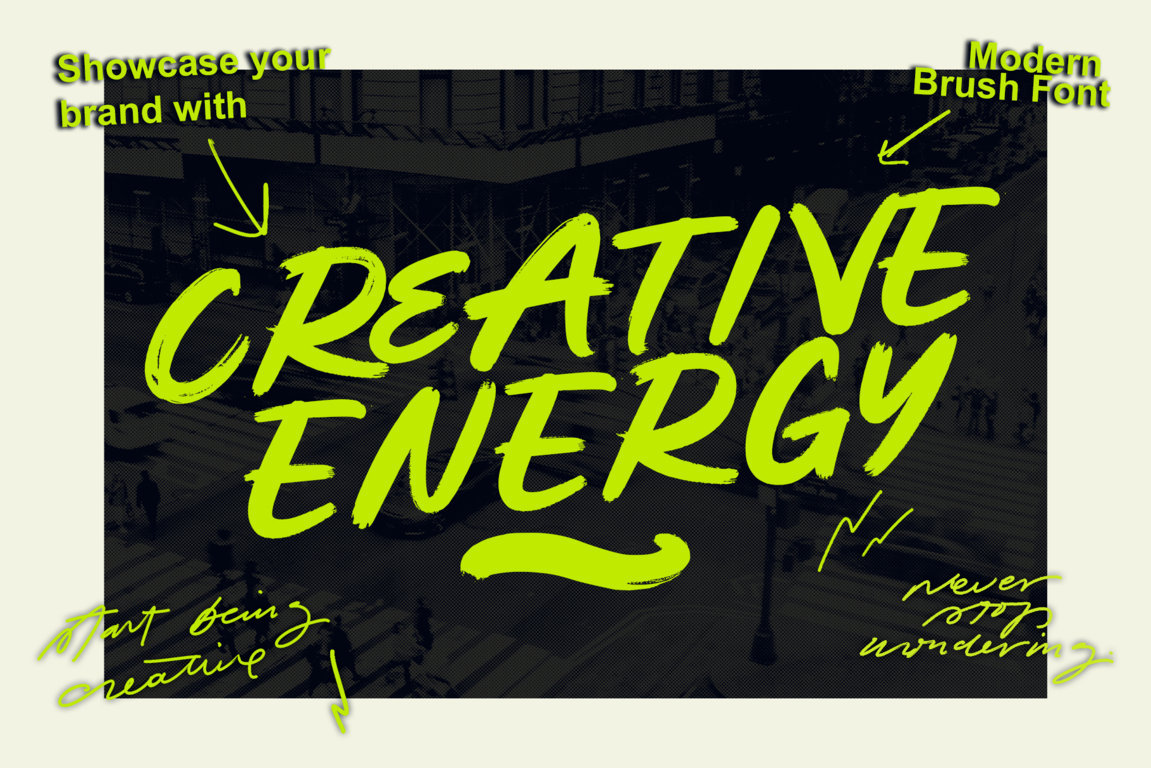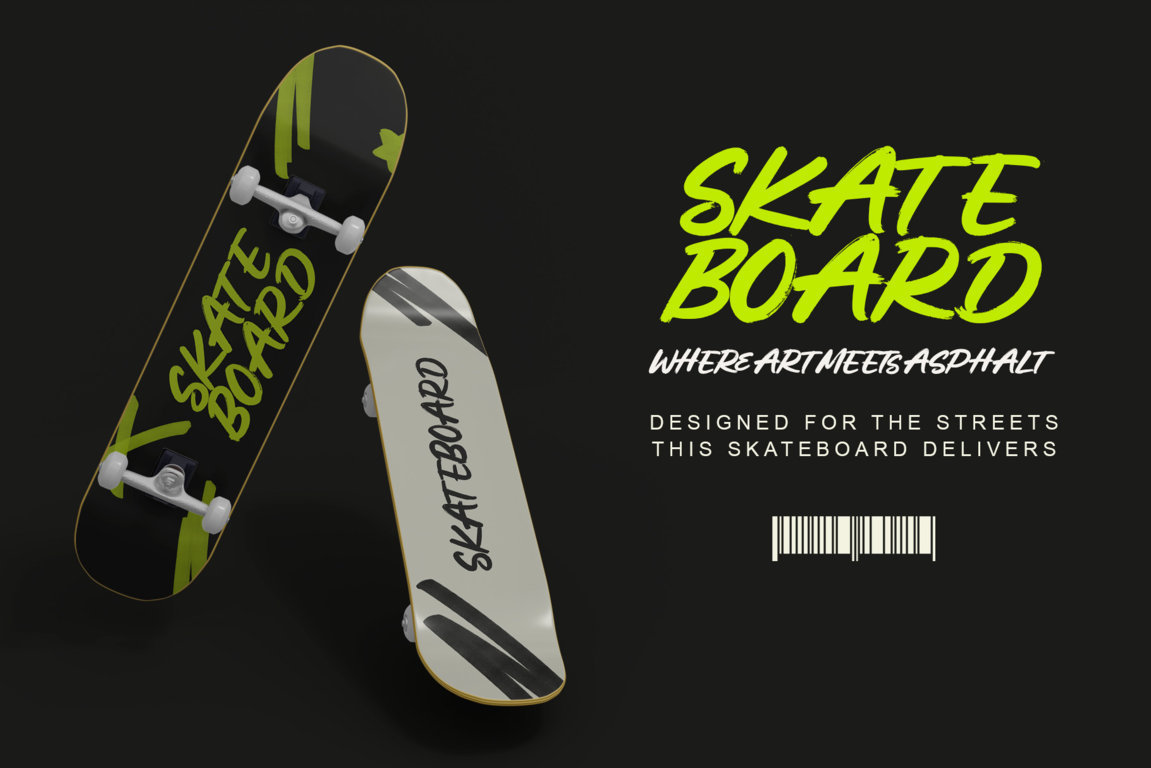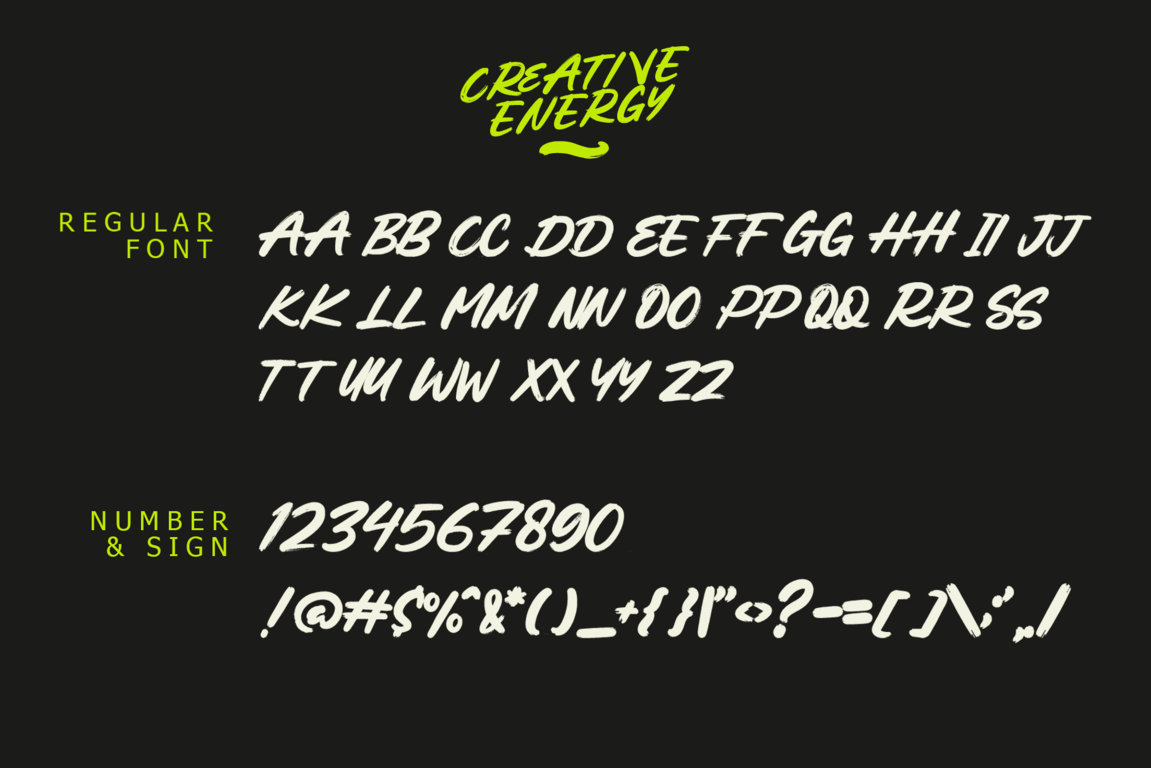
Creative Energy is a modern brush font designed to deliver powerful motion, raw expression, and bold visual impact. Inspired by energetic hand-drawn lettering and contemporary design trends, this font features dynamic strokes, textured lines, and expressive forms that instantly grab attention. Every letter feels alive—strong, confident, and full of creative momentum.
Perfect for branding, posters, social media graphics, apparel design, YouTube thumbnails, logos, and bold digital or print projects, Creative Energy brings an aggressive yet artistic personality to your typography. It thrives in designs that demand visibility, emotion, and modern edge.
Fully PUA encoded and equipped with alternates and ligatures, Creative Energy gives designers complete control to create unique, expressive, and high-impact typographic compositions. Whether used for headlines, logos, or creative visuals, this brush font ensures your message stands out with energy and style.
Multilingual support (ä ö ü Ä Ö Ü ß ¿ ¡)
Uppercase & lowercase letters
Numerals & punctuation
Alternates & ligatures